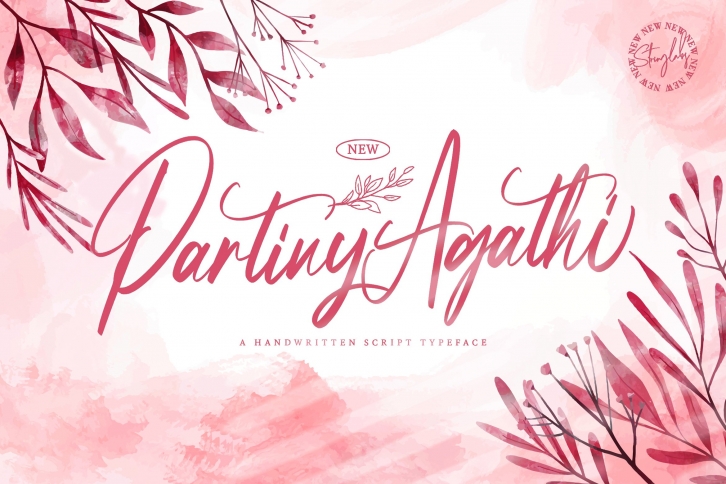
Partiny Agathi is a gorgeous font that was realeased on March 31, 2021. The font can be used in many style contexts and design environments. Perfect for invitations, magazines, websites, logos, and more! It was designed by Stringlabscreative and the file size is 13.46 MB. Thanks for checking out this font!